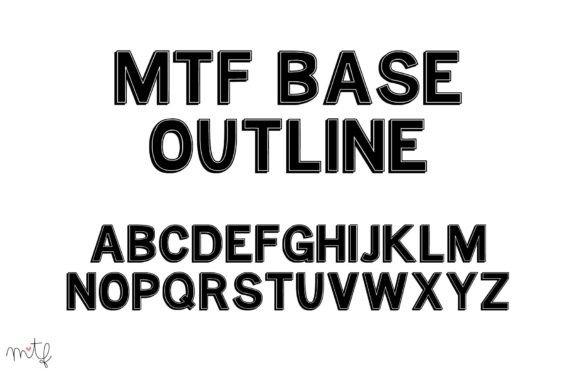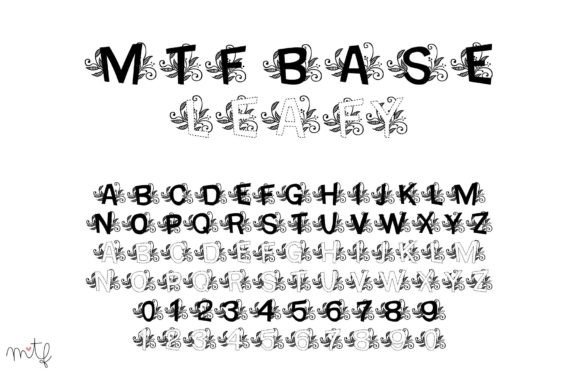
Introducing Base Trio Font: Elevate Your Designs with Versatility and Personality
Are you tired of using the same old fonts in your designs? Look no further than the Base Trio Font, a fantastic collection of three fonts that can add a touch of personality to your projects. This splendid trio includes a sans serif font for a solemn and impeccable look, a decorative font to unleash your creativity, and a leafy version to add a playful twist. In this article, we’ll dive into the features and benefits of the Base Trio Font and explore how you can use it to take your designs to the next level.
The Power of Versatility: Three Fonts in One
The Base Trio Font is more than just a single font – it’s a collection of three unique fonts that cater to different design needs. The sans serif font is perfect for projects that require a professional and sleek look, such as corporate branding, business cards, or formal invitations. Its clean lines and modern aesthetic make it an excellent choice for designers who want to convey a sense of sophistication and elegance.
On the other hand, the decorative font is ideal for projects that need a dash of creativity and whimsy. With its intricate details and ornate features, this font is perfect for designs that require a touch of personality, such as logos, packaging, or social media graphics. The decorative font is sure to make your designs stand out from the crowd and leave a lasting impression on your audience.
Last but not least, the leafy version of the Base Trio Font is a fun and playful font that’s perfect for designs that require a bit of humor and wit. With its leaf-like features and carefree aesthetic, this font is ideal for projects such as posters, flyers, or children’s book illustrations. The leafy font is sure to bring a smile to your audience’s faces and add a touch of playfulness to your designs.
Key Features of the Base Trio Font
So, what makes the Base Trio Font so special? Here are some of its key features:
- Three unique fonts in one: The Base Trio Font includes a sans serif font, a decorative font, and a leafy font, giving you the versatility to choose the perfect font for your design needs.
- High-quality design: Each font in the Base Trio Font has been carefully crafted to ensure that it looks great in any design, whether it’s used for print or digital purposes.
- Scalable: The fonts in the Base Trio Font are scalable, meaning that they can be used in a variety of design applications, from business cards to billboards.
How to Use the Base Trio Font in Your Designs
Now that we’ve covered the features and benefits of the Base Trio Font, let’s talk about how to use it in your designs. Here are some tips to get you started:
- Pair the sans serif font with bold graphics: The sans serif font is perfect for designs that require a professional look. Pair it with bold graphics or bright colors to create a striking contrast.
- Use the decorative font for headlines: The decorative font is ideal for headlines or titles that need to make a statement. Use it to add a touch of personality to your designs and draw attention to your message.
- Add a playful touch with the leafy font: The leafy font is perfect for designs that require a bit of humor and wit. Use it to add a playful touch to your designs and bring a smile to your audience’s faces.
| Font Name | Base Trio Font Font |
| Author | Miss Tiina |
In conclusion, the Base Trio Font is a versatile and fun font that’s perfect for designers and crafters who want to add a touch of personality to their designs. With its three unique fonts in one, high-quality design, and ease of use, this font is sure to become a staple in your design toolkit. Whether you’re working on a corporate branding project or a playful children’s book illustration, the Base Trio Font has got you covered. So why wait? Download the Base Trio Font today and start elevating your designs to the next level!